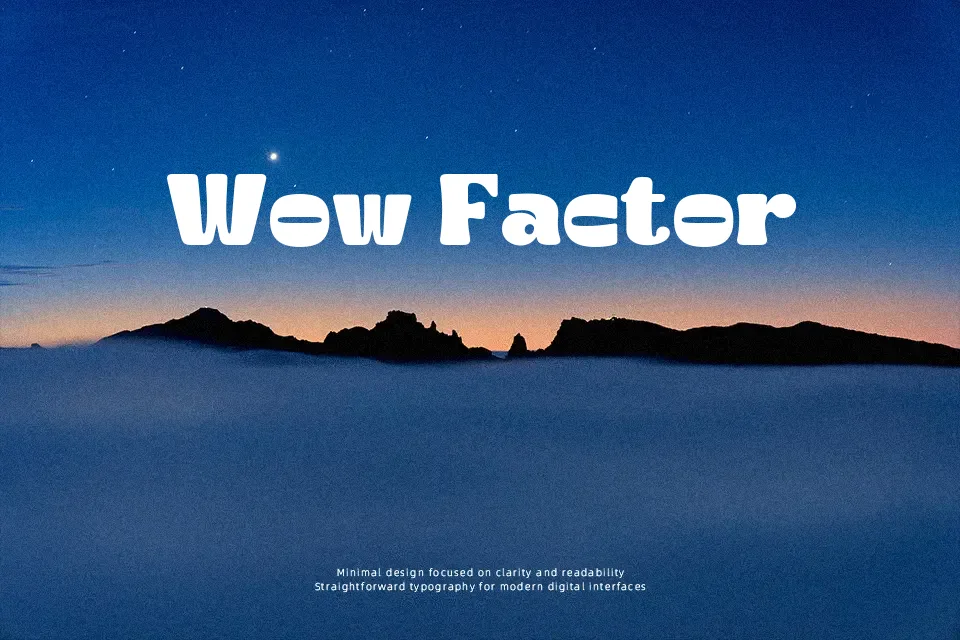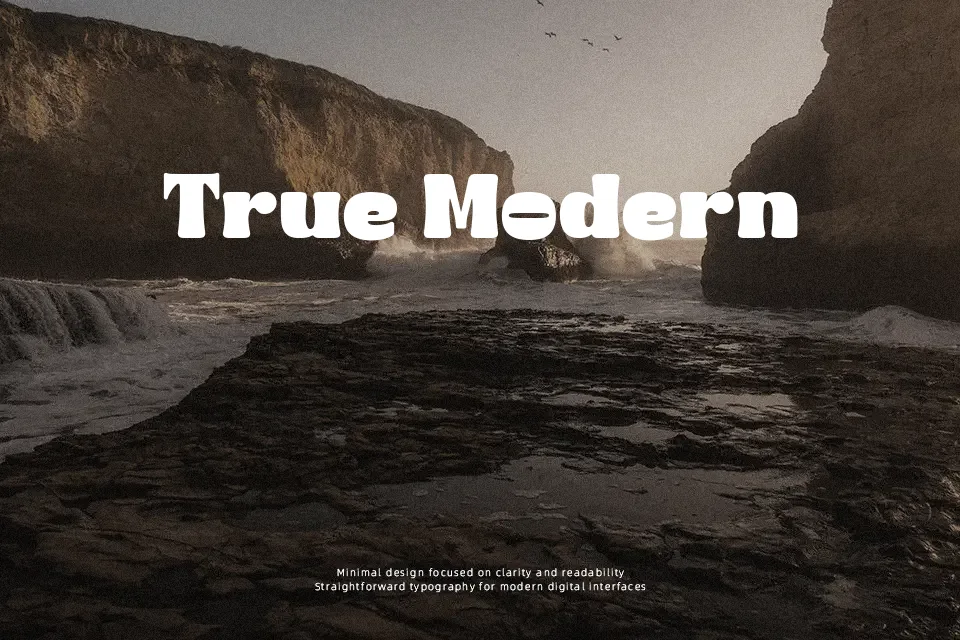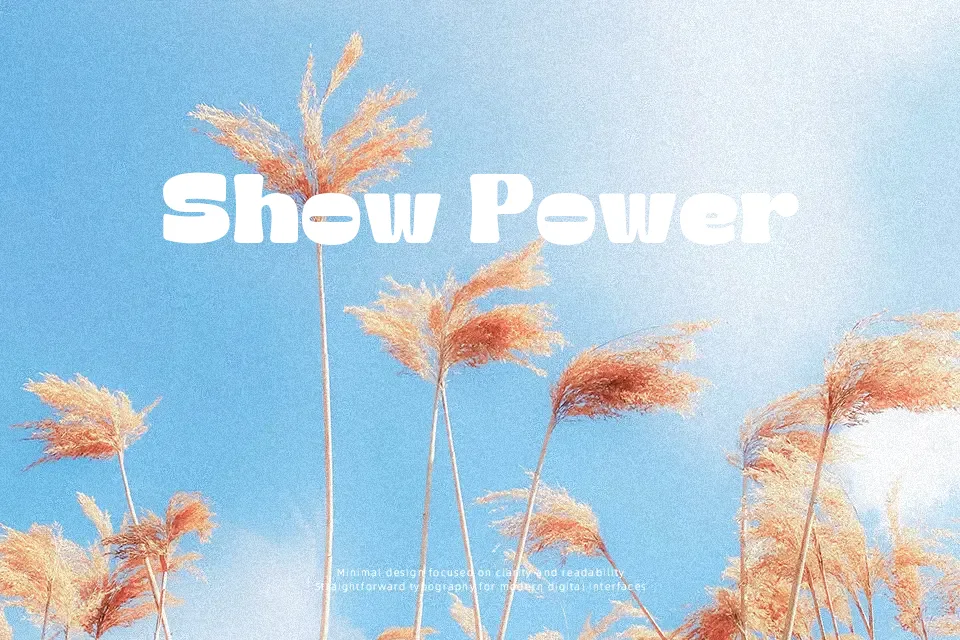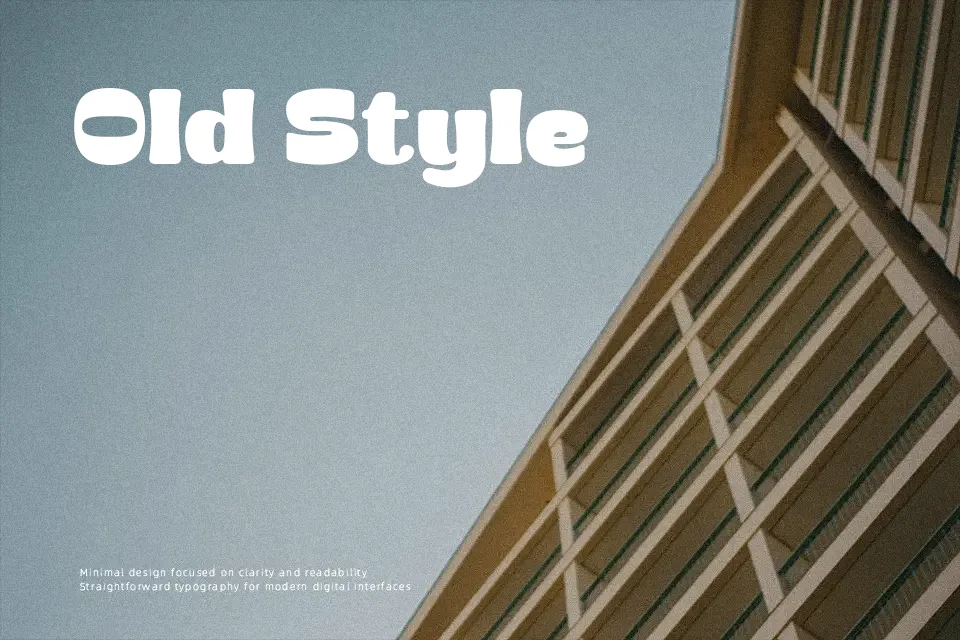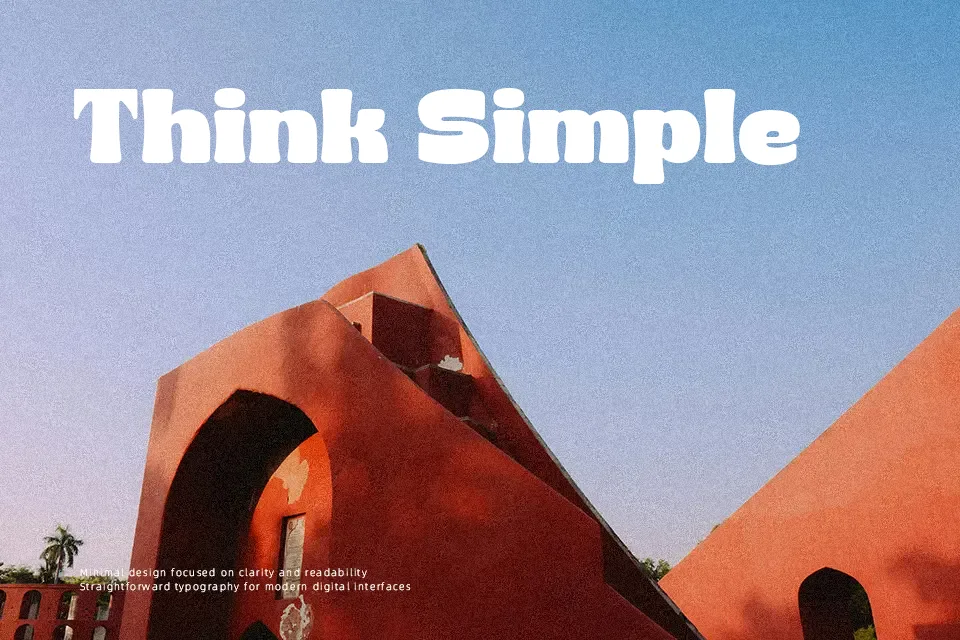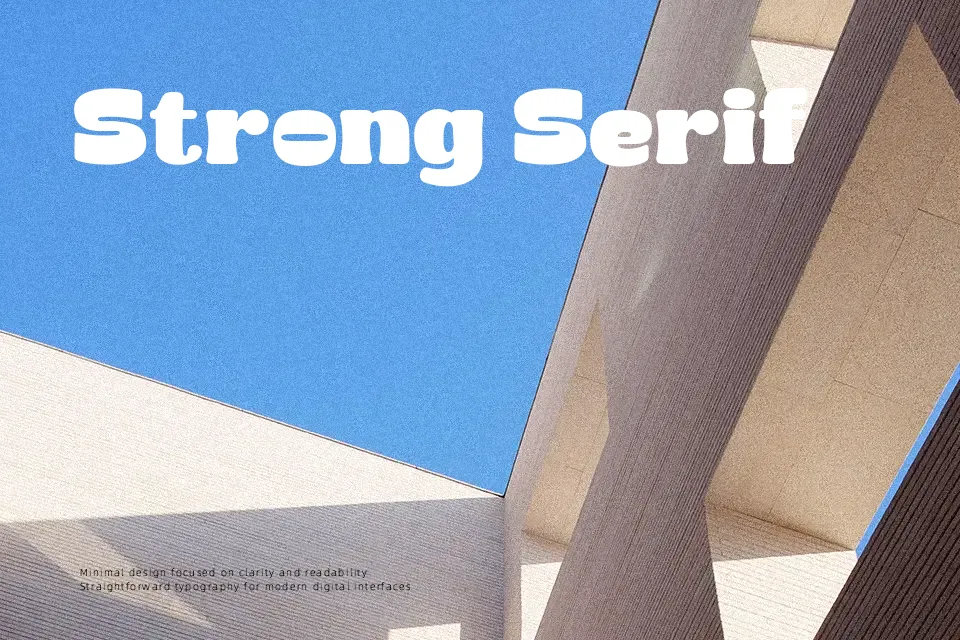
The Rufly Font
The Rufly Font combines substantial stroke weight with gently rounded corners to create a distinctive display presence. Solid proportions and generous letterforms give the design exceptional visual weight, while compact spacing ensures words hang together coherently in large titling. Moderately low stroke contrast maintains uniform density throughout the alphabet, lending the typeface a warm, approachable rhythm in headline compositions and product packaging. However, the tightly clustered counters and pronounced thickness make extended body text difficult to decipher comfortably at small sizes. The typeface proves most dependable when commanding focal layouts that celebrate bold retro warmth.
Best For: vintage poster headlines, craft beverage packaging, apparel graphics, music festival signage
Not Ideal For: continuous paragraph text, mobile interface body copy, dense editorial layouts, small legal disclaimers
Perfect for branding, headline, and packaging, with a bold and decorative style.